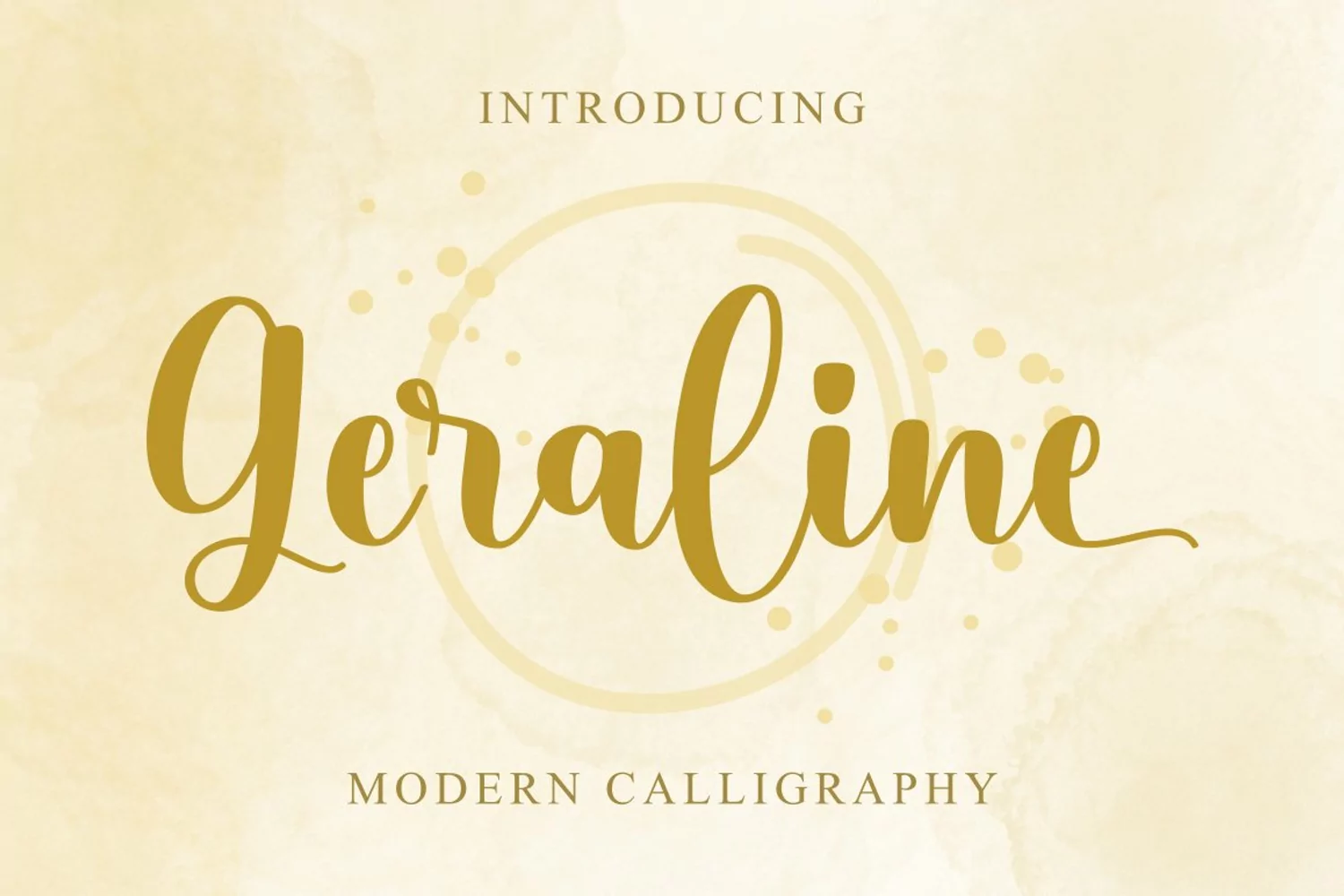
Geraline is a sweet and soft handwritten font. Get inspired by its authentic feel and use it to create gorgeous wedding invitations, beautiful stationary art, eye-catching social media posts, and cute greeting cards.
This font is PUA encoded which means you can access all of the glyphs and swashes with ease!